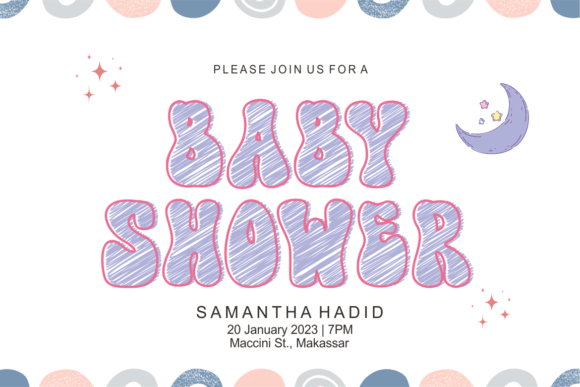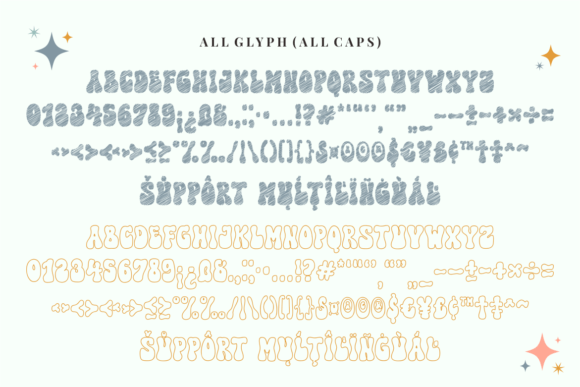
Retro Scrible Font
Retro Scrible is a groovy display font, suitable for a wide spectrum of applications. From greeting cards to headlines, stickers, and greeting cards, this font will definitely elevate any creation.
*The title is spelt “Scrible” to avoid duplicate font titles.